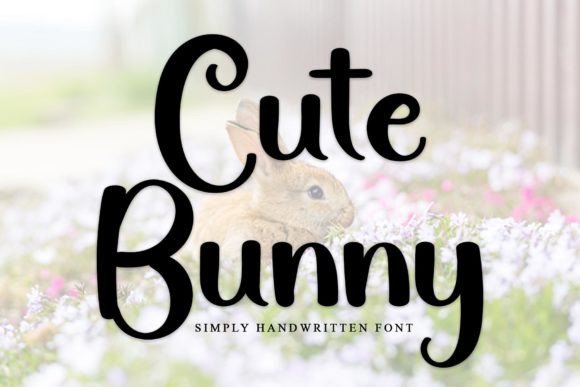
Get Ready to Hug Your Designs with the Adorable Cute Bunny Font
Have you ever stared at a blank canvas, struggling to find the perfect font to bring your creative vision to life? You know, that moment when everything feels stagnant, and you just need a little spark to ignite your imagination? That’s exactly when I discovered the magic of the Cute Bunny Font – a beautiful, elegant handwritten font that instantly adds a touch of whimsy to any design.
This lovely font is perfect for adding a personal, human touch to your projects, and its timeless style ensures that your designs will remain visually appealing for years to come. Whether you’re a seasoned designer or a creative newbie, the Cute Bunny Font is a valuable addition to your toolkit, allowing you to craft unique and captivating designs that leave a lasting impression.
- Unique Characteristics: Features a playful, childlike design with rounded edges and cute bunny-inspired elements, making it ideal for children’s books, cartoons, and other whimsical projects.
Cute Bunny Font Review
First off, I want to say that I love the whimsical and playful vibe that Cute Bunny Font brings to the table. The font is perfect for creating eye-catching headers and titles that grab the user’s attention. ✨ I especially appreciate the cute little bunny characters that are incorporated into the font, adding an extra layer of personality to the design. ✨
However, I do have some reservations about using this font for large blocks of text. The font can start to feel overwhelming and difficult to read when used extensively, which is why I would recommend using it sparingly. ⚠️ Additionally, the font may not be the best choice for formal or professional designs, as it can come across as too childish. ⚠️
Overall, I think Cute Bunny Font is a great choice for designers looking to add a touch of whimsy to their projects. It’s perfect for children’s books, party invitations, or any other design that needs a playful twist. Just be mindful of its limitations and use it in moderation.
- Perfect for creating eye-catching headers and titles
- Cute and playful vibe adds personality to the design
- May not be suitable for large blocks of text
- May not be suitable for formal or professional designs
The Cute Bunny Font is perfect for creating playful and whimsical designs. Use it for:
– Children’s party invitations
– Easter-themed designs
– Whimsical quotes and sayings
– Cartoon-style illustrations
To get the most out of the Cute Bunny Font, experiment with different font sizes, colors, and styles. Combine it with other playful fonts or illustrations to create unique and eye-catching designs.